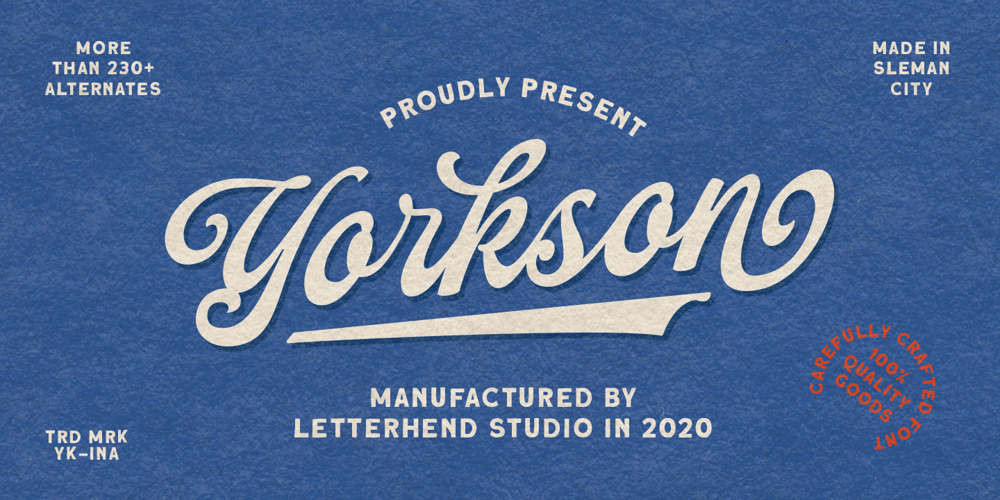
Yorkson Font Family was designed by Hendry Juanda and published by Letterhend. Yorkson contains 1 styles and family package options. Introducing, Yorkson – A Script Logotype Font. Beside it has more than 230+ glyphs, this type of font perfectly made to be applied especially in logo. Just play around with the swashes and ligatures, then you can have your logo design. This font is also perfect for various formal forms such as invitations, labels, logos, magazines, books, greeting / wedding cards, packaging, fashion, make up, stationery, novels, labels or any type of advertising purpose.Features : uppercase & lowercase numbers and punctuation multilingual swash and ligature alternates PUA encoded We highly recommend using a program that supports OpenType features and Glyphs panels like many of Adobe apps and Corel Draw, so you can see and access all Glyph variations. How to access opentype feature : letterhend.com/tutorials/using-opentype-feature-in-any-software/Email us to letterhend@gmail.com if you need something! Happy Designing!